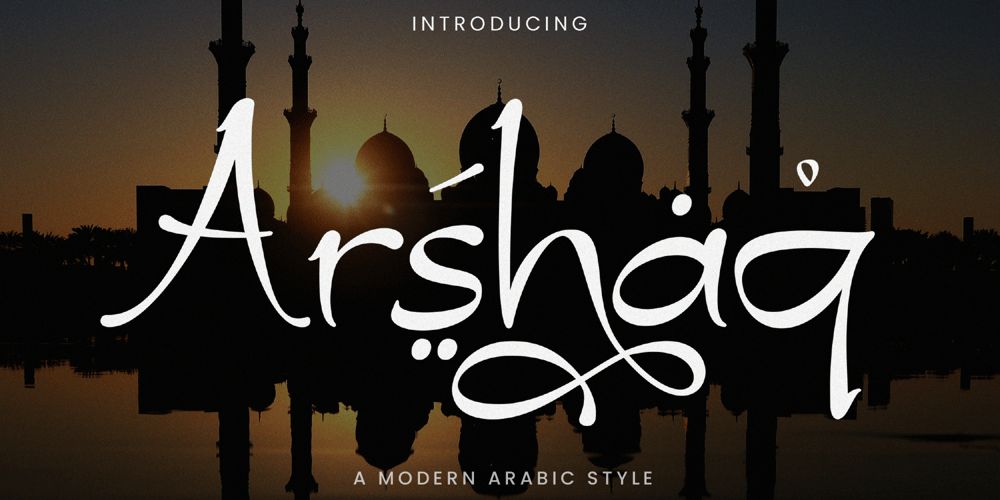
Arshaq
Arshaq font
Arshaq Font Family was designed by Achmad Yani and published by Flawlessandco. Arshaq contains 1 styles and family package options. Arshaq is an Arabic display font that showcases an elegant and beautiful design. This font has been carefully crafted to provide a stunning appearance to every Arabic script.An Original typeface that suitable for any graphic designs such as branding materials, t-shirt, print, business cards, logo, poster, t-shirt, photography, quotes .etcThis font support for some multilingual. Modern Sweet Retro that contains uppercase A-Z and lowercase a-z, alternate character, numbers 0-9, and some punctuation.If you need help, just write me! Thanks so much for checking out my shop!